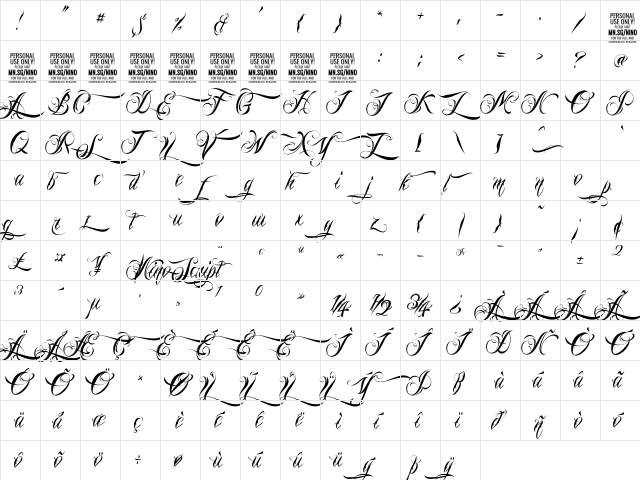
Nino Script PERSONAL USE ONLY Regular
| Foundry | Mans Greback |
| Designer | Mans Greback, Vicky Mardian |
Design Context for Nino Script PERSONAL USE ONLY Typeface
Nino Script PERSONAL USE ONLY flows with the natural rhythm of handwritten lettering, making it ideal for designs that call for warmth and personal expression.